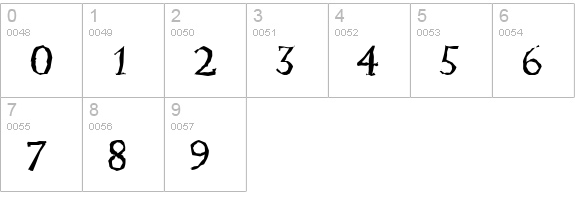
JessicaRandom-Italic Font Details
JessicaRandom-Italic is a distinctive, italic variant in the JessicaRandom typeface family \xE2\x80\x94 well suited to design and typography projects.
Introducing JessicaRandom-Italic font - a sleek and modern typeface that exudes elegance and sophistication. The italicized design adds a touch of style and flair, making it perfect for projects that require a touch of finesse. The fluid lines and curves of JessicaRandom-Italic font bring a sense of movement and dynamism to your text, making it a versatile choice for a wide range of design applications. This font is not only visually appealing but also highly legible, ensuring that your message comes across clearly and effectively. Whether you're designing a logo, creating a poster, or crafting a website, JessicaRandom-Italic font is sure to make a statement. Best of all, JessicaRandom-Italic font is available for free download at FontsMarket.com. So why wait? Add this stunning typeface to your font collection today and elevate your designs to new heights.